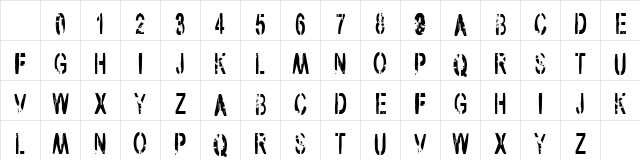
Complete vtks army Regular glyph index. Displaying only characters natively supported by vtks army Regular font.
vtks army has the no-nonsense character of military stencilling and tactical signage, projecting authority and directness.
A strong choice for security brands, outdoor gear, and high-stakes visual communication.
Pro Tip: Try vtks army in all-caps for the most authentic military signage feel. It pairs well with stark, minimal layouts and muted colour palettes.